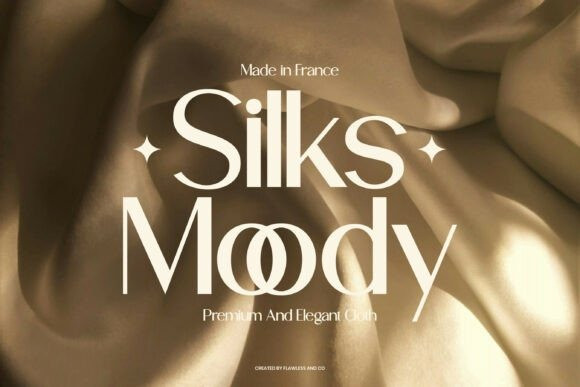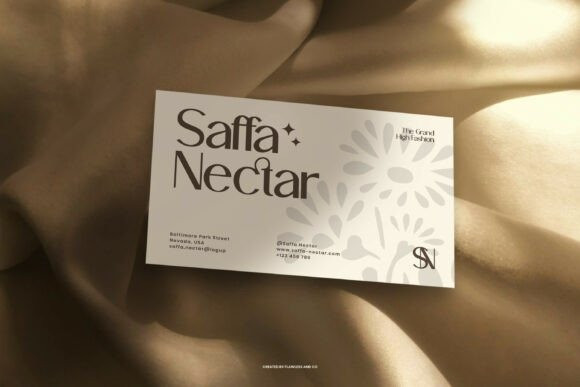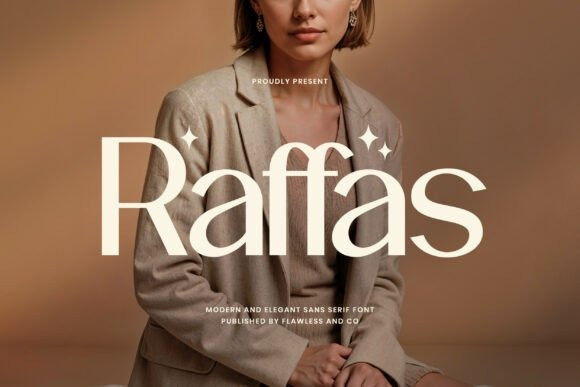
Raffas Font
Raffas Font is an elegant modern sans serif font designed to bring a clean, refined, and professional feel to any visual project. With its smooth curves, balanced proportions, and minimalist character, Raffas delivers a timeless aesthetic that feels both contemporary and luxurious. This font is crafted to work beautifully in branding and logo design, offering clarity and sophistication without losing personality.